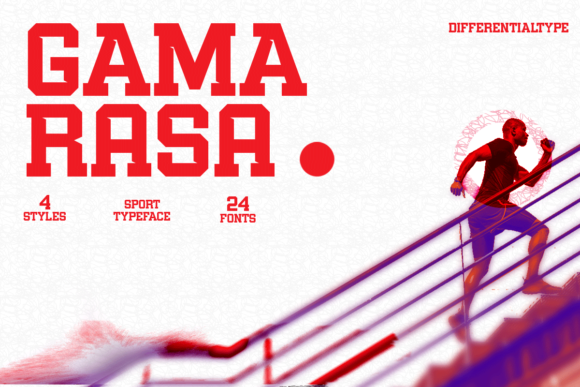
Introducing Gama Rasa: The Futuristic Font That Will Revolutionize Your Design Projects
In a world saturated with digital noise, standing out demands a bold and captivating presence. Introducing Gama Rasa, the display font that embodies the spirit of innovation and individuality. This meticulously crafted display font is a masterpiece of digital artistry, designed to elevate your designs to new heights.
Gama Rasa's bold and robotic strokes exude an aura of strength and authority. Its unique letterforms, inspired by the aesthetics of futuristic technology, create a striking visual impact that commands attention. Whether you're crafting a striking logotype, a powerful headline, or a captivating poster, Gama Rasa has the power to transform your words into unforgettable visual statements.
Designed with the discerning designer in mind, Gama Rasa offers a wealth of versatility and customization options. Its extensive character set, including uppercase, lowercase, numerals, punctuation, and a comprehensive selection of glyphs, provides endless possibilities for creative expression. Unleash your imagination and let Gama Rasa become the cornerstone of your most ambitious design projects.
Step into the future with Gama Rasa and embrace the limitless possibilities of digital design. This extraordinary font is perfect for a wide range of applications, including corporate identity, brand identity, apparel design, posters, music, movies, games, magazines, books, comics, cartoons, YouTube videos, Instagram posts, websites, and any other creative endeavor you can dream up.
With Gama Rasa by your side, you'll unlock a new realm of design possibilities. Its cutting-edge aesthetics and unparalleled versatility will empower you to create designs that resonate with audiences, leaving a lasting impression and driving your projects to new heights of success.